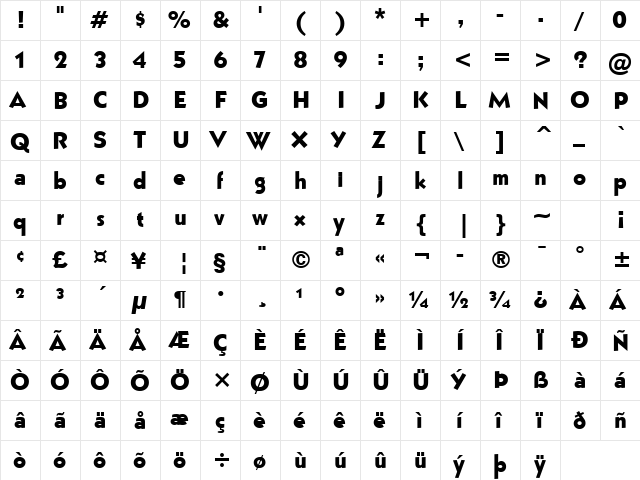
Bully Normal
Design Context for Bully Typeface
Bully offers clean, dependable letterforms without strong stylistic allegiance, making it a practical choice for designers who need flexibility.